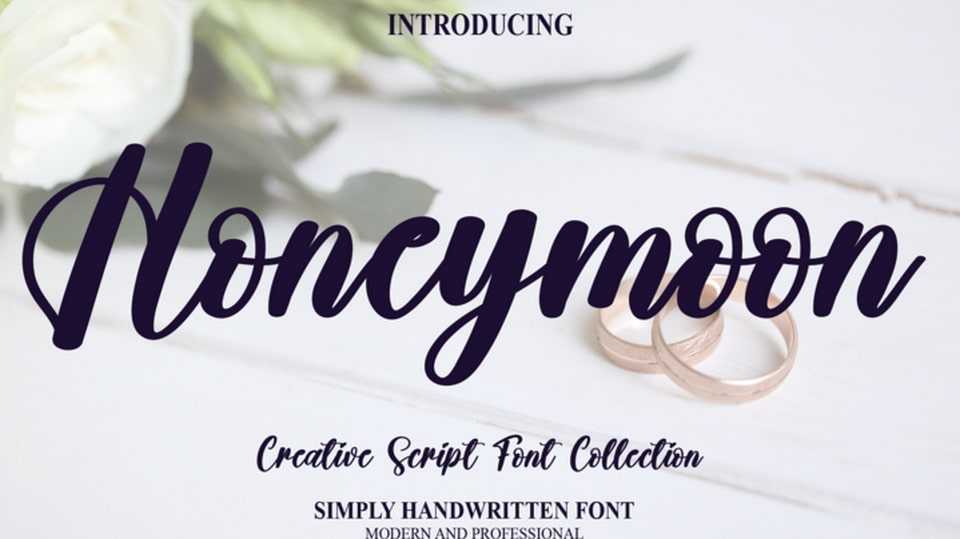
Download Honeymoon font, an organic and dynamic handwritten script typeface Modern and elegant, Honeymoon font is made of beautiful creative strokes.